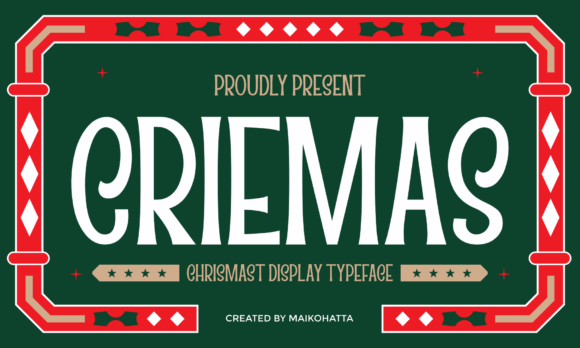
Criemas Font: The Ultimate Festive Christmas Display Typeface
Are you looking for a font that embodies the spirit of Christmas? Look no further than Criemas, a festive display typeface that exudes a warm, retro charm perfect for seasonal branding and holiday projects. In this article, we’ll dive into the world of Criemas, exploring its unique features, uses, and benefits for designers and crafters.
What is Criemas Font?
Criemas is a Christmas display typeface that boasts tall, playful letterforms with a joyful personality. Its stretched curves, soft edges, and quirky proportions create a unique and eye-catching visual identity that’s perfect for the holiday season. The font’s robust design ensures maximum visibility and charm on posters, banners, packaging, and other marketing materials.
Key Features of Criemas Font
- Festive and Playful: Criemas features tall, playful letterforms with a warm retro charm that’s perfect for creating a joyful holiday atmosphere.
- Unique Proportions: The font’s stretched curves, soft edges, and quirky proportions create a distinctive visual identity that’s sure to stand out.
- Robust Design: Criemas has a bold, display-oriented design that ensures maximum visibility and impact on various marketing materials.
Uses of Criemas Font
Criemas is an incredibly versatile font that can be used for a wide range of holiday projects, including:
- Christmas Event Promotion: Create eye-catching posters, banners, and social media graphics to promote your holiday events.
- Seasonal Branding: Use Criemas to create a cohesive brand identity for your holiday products or services.
- Retro-Style Greeting Cards: Add a touch of nostalgia to your holiday greeting cards with Criemas’ vintage charm.
- Packaging: Create festive packaging that stands out on store shelves with Criemas’ bold and playful design.
- Social Media Designs: Use Criemas to create engaging social media graphics that capture the spirit of the holiday season.
Benefits of Using Criemas Font
So, why choose Criemas for your holiday projects? Here are just a few benefits:
- Instantly Eye-Catching: Criemas’ bold and playful design is sure to grab attention and create a lasting impression.
- Vintage Holiday Aesthetics: The font’s retro charm adds a touch of nostalgia to your holiday projects, evoking feelings of warmth and cheer.
- Modern Display Style: Criemas combines vintage aesthetics with modern display style, making it perfect for a wide range of holiday projects.
Tips for Using Criemas Font
To get the most out of Criemas, here are a few tips:
- Experiment with Colors: Try pairing Criemas with classic Christmas colors like red, green, and gold to create a festive atmosphere.
- Play with Swashes: Use Criemas’ swashes and alternate characters to add a touch of elegance and sophistication to your designs.
- Mix and Match: Combine Criemas with other fonts to create a unique and eye-catching visual identity.
Criemas is a festive and playful Christmas display typeface that’s perfect for holiday projects. Its unique features, versatility, and benefits make it an excellent choice for designers and crafters looking to create a joyful and sophisticated holiday aesthetic. With Criemas, you can add a touch of nostalgia and cheer to your designs, making it a must-have font for the holiday season.